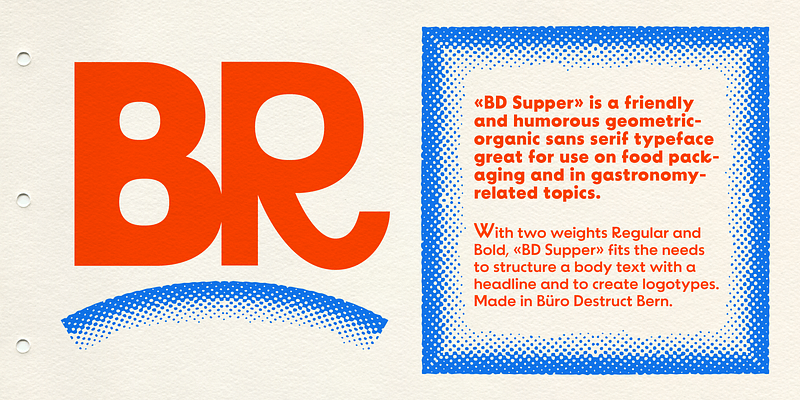
BD Supper Font Free Download is a bold and modern sans-serif typeface designed for maximum impact. Its strong, clean lines and geometric shapes make it perfect for branding, logos, headlines, posters, and any project that requires a contemporary, confident look.
BD Supper Font is versatile, working well for both large display text and smaller body text. It integrates seamlessly with design tools like Adobe Illustrator, Photoshop, Figma, and Canva, offering flexibility for both print and digital designs.